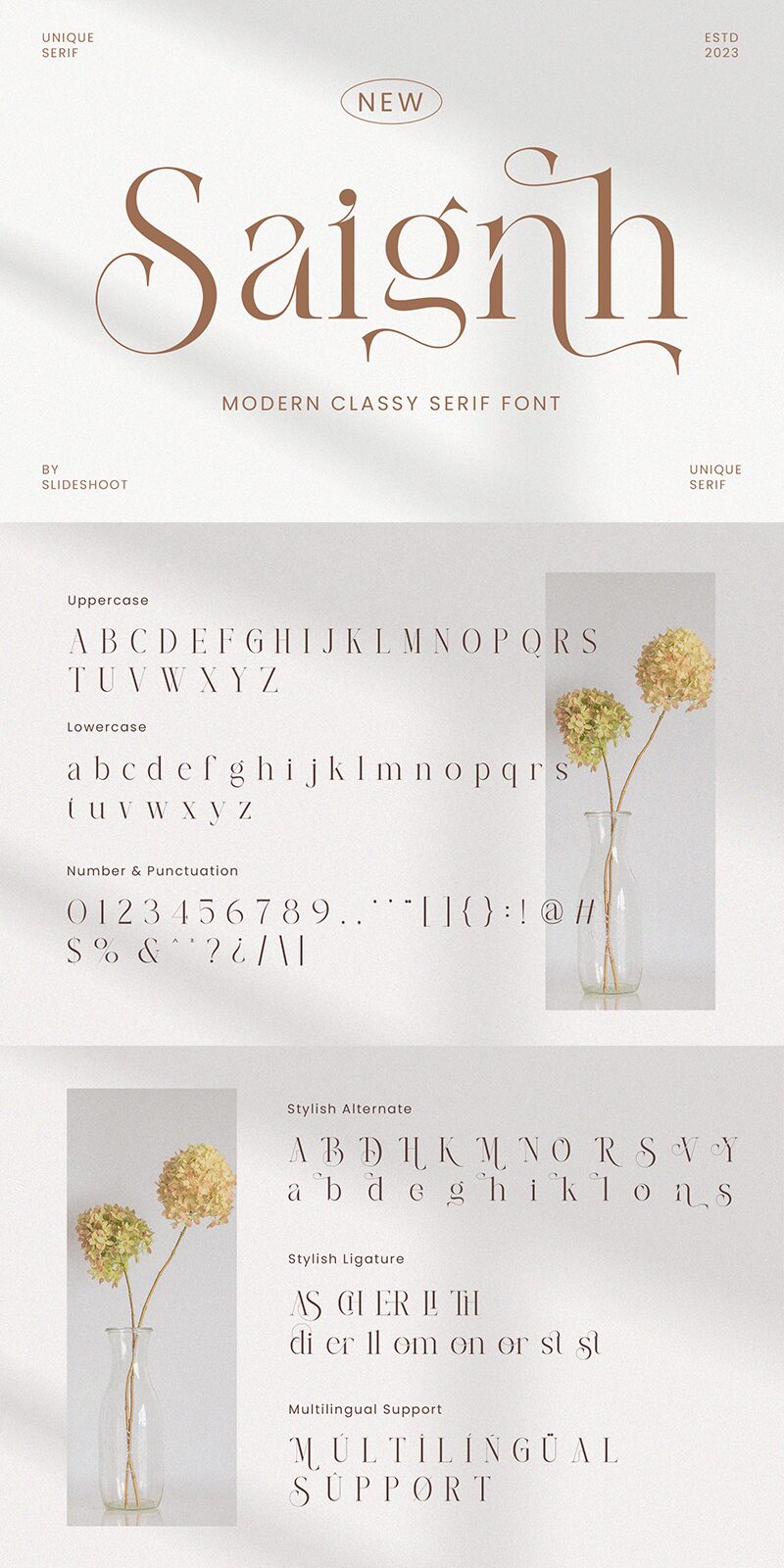
Saignh
Saignh font, created by Ahmad Riqi, is a modern serif typeface with shades of playful tones. Sophistication and elegance can be found in its characters whose gentle curves and minimalistic ends maintain the charm of a professional design. And although this typeface stands out in titles, its simple yet understated letters will never overwhelm other elements.
Design professional business or invitation cards, add it to packaging/wrapping projects or use it for song covers. Work on branding projects for cosmetics/beauty products or fashion brands as you apply Saignh to slogans/logos with stylish designs. The free font can also be a wonderful choice for magazines and book covers.